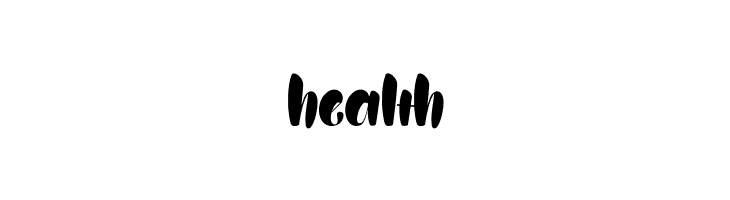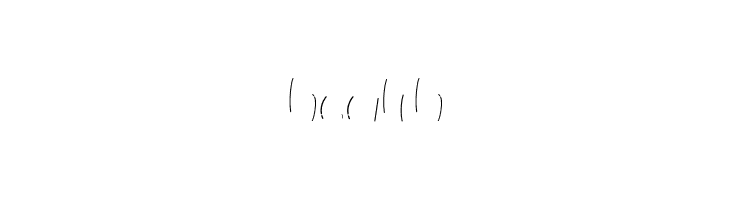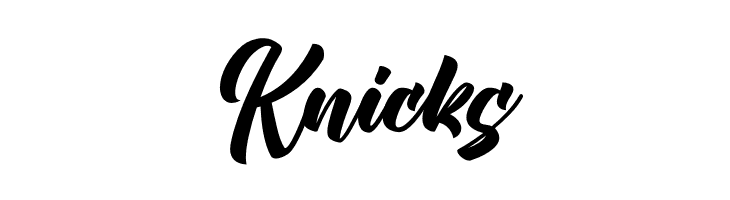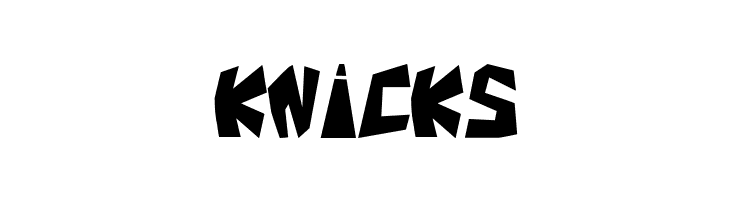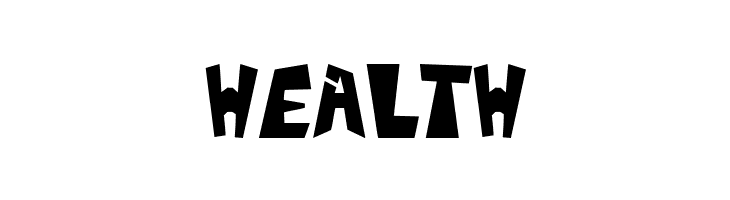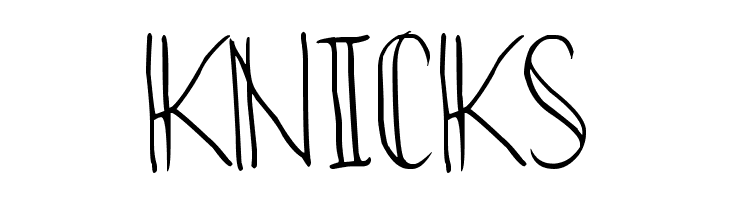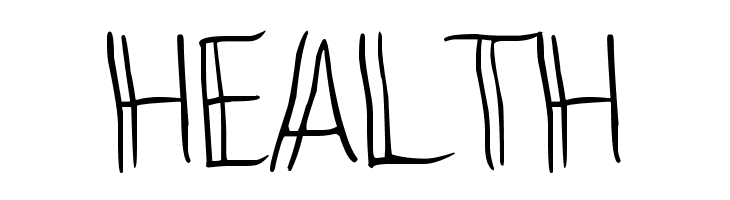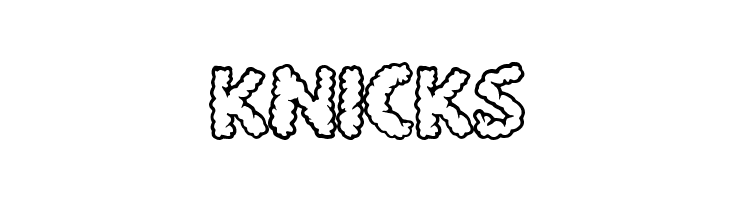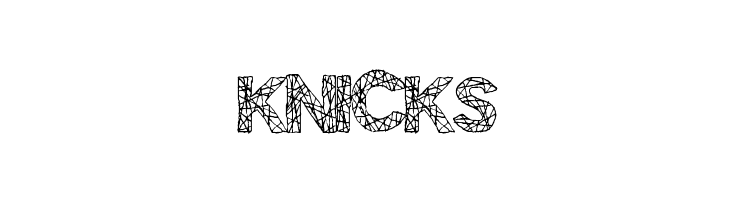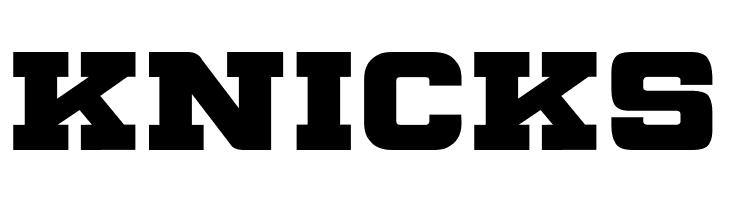
• Big Ten Block
A bold, slab serif font with a strong, structured appearance.
• Bigfoot
A bold and playful font with rounded, thick characters and whimsical flair.
• Bigfoot2
A whimsical and decorative font with thin, elegant strokes and a calligraphic flair.
• Bigola
An elegant, cursive font with intricate loops and swashes, perfect for artistic projects.
• BigSmoke
A playful, cloud-like font with bold outlines and whimsical shapes.
• BigTangle
A bold, web-patterned decorative font ideal for artistic headlines and logos.
• BigTeezSq
A bold, geometric font with sharp angles and a modern, edgy style.
• Bikambone
A graceful and flowing script font with a handwritten style.
• Bikinny Demo
• Billbreak
A bold, expressive script font with dynamic flow and strong visual impact.